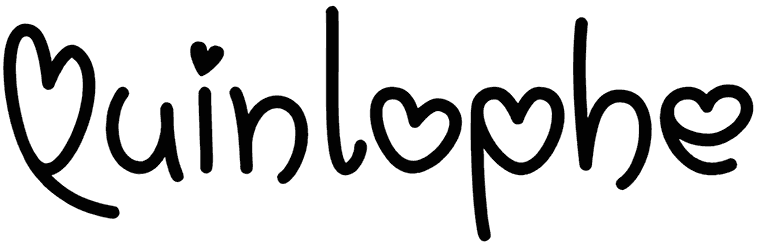
Quinlophe Font
With the help of a holiday font such as Quinlophe, you can save a lot of time and energy while designing high-end content such as gift cards, invitations, wallpapers, greeting cards, and product packaging. Due to its rom…
Designed byZulfikar Ali
With the help of a holiday font such as Quinlophe, you can save a lot of time and energy while designing high-end content such as gift cards, invitations, wallpapers, greeting cards, and product packaging. Due to its romantic style, this Valentine font would lead to a sense of love, dreaminess, grunge, and fun.